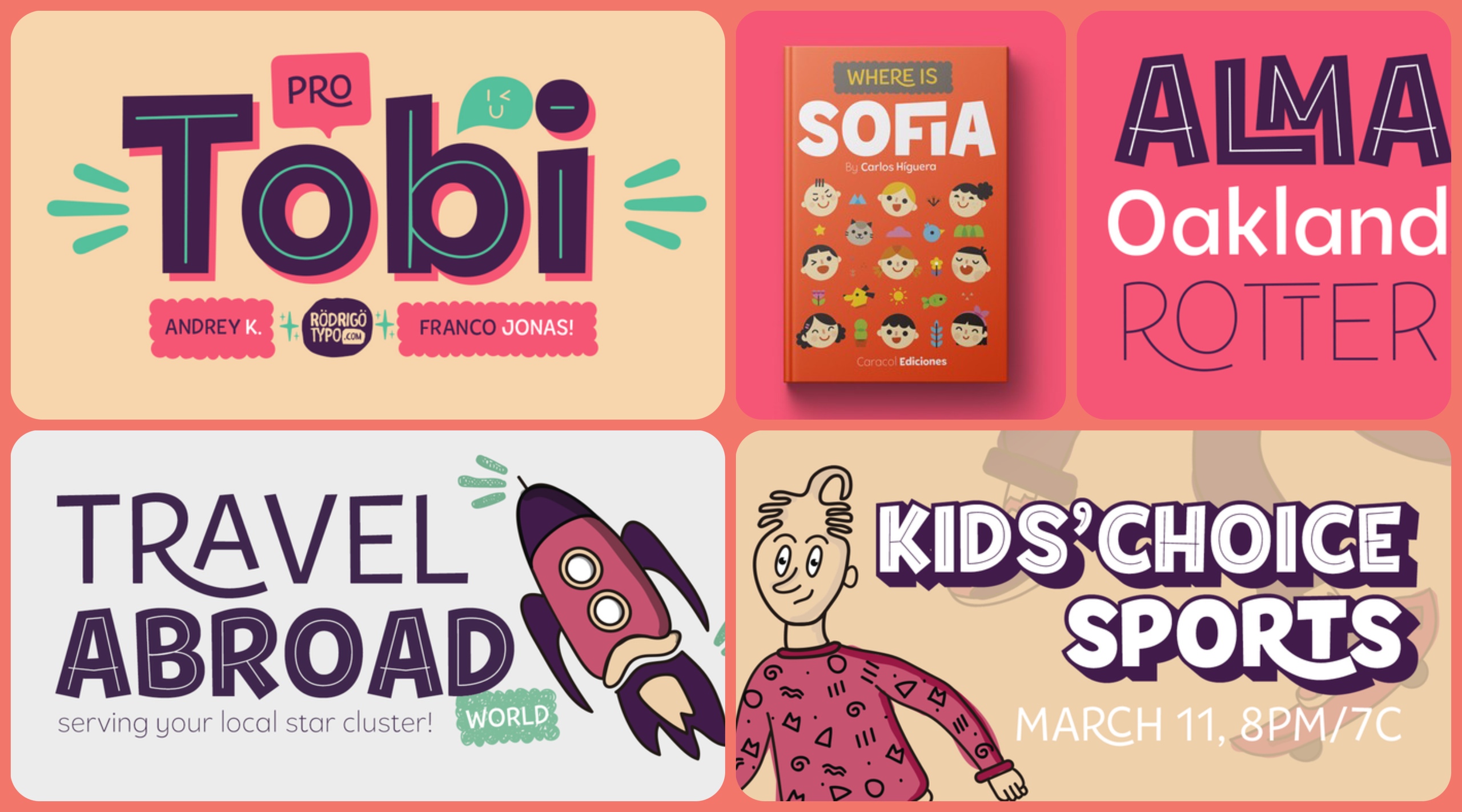
Tobi Pro Font
Tobi Pro Font is perfect for professional business communications, corporate presentations, modern office environments, consulting firm branding, financial services identity, and executive-level documentation. Its authoritative character makes it ideal for law firms, accounting practices, management consultancies, professional service providers, corporate training materials, and any project requiring business credibility with executive sophistication and professional excellence standards.
This font is exciting because it delivers uncompromising professional quality while maintaining exceptional readability across all business communication platforms and formats. The precisely crafted letterforms demonstrate attention to detail and commitment to excellence, creating typography that commands respect in boardrooms and inspires confidence among clients, stakeholders, and professional peers who demand the highest standards of business presentation.
The Tobi Pro Font family typically includes Light, Regular, Medium, Bold, and Black weights with corresponding italics, small caps, and extensive business-focused OpenType features that enhance its professional versatility. This comprehensive collection provides executives and designers with sophisticated tools for creating authoritative brand systems that maintain consistent professionalism while offering flexibility for complex corporate communication requirements and international business applications.